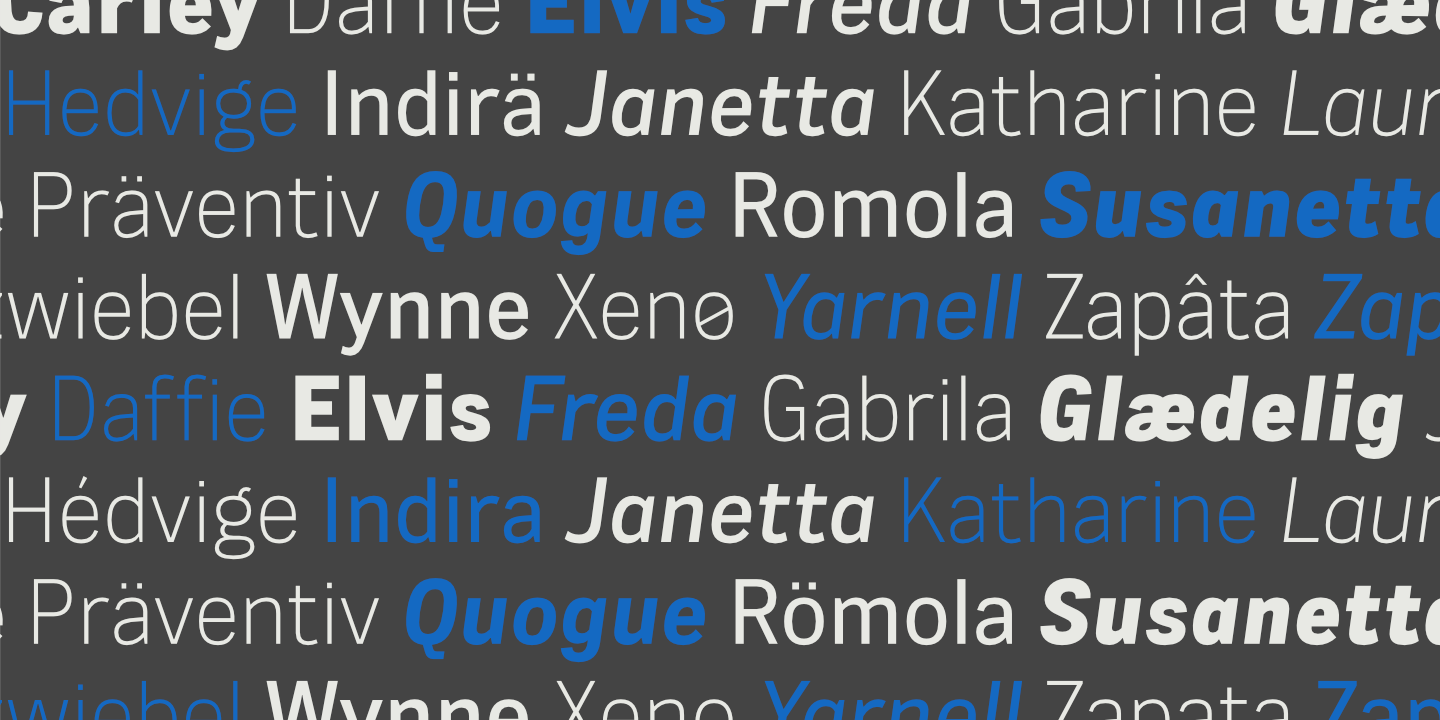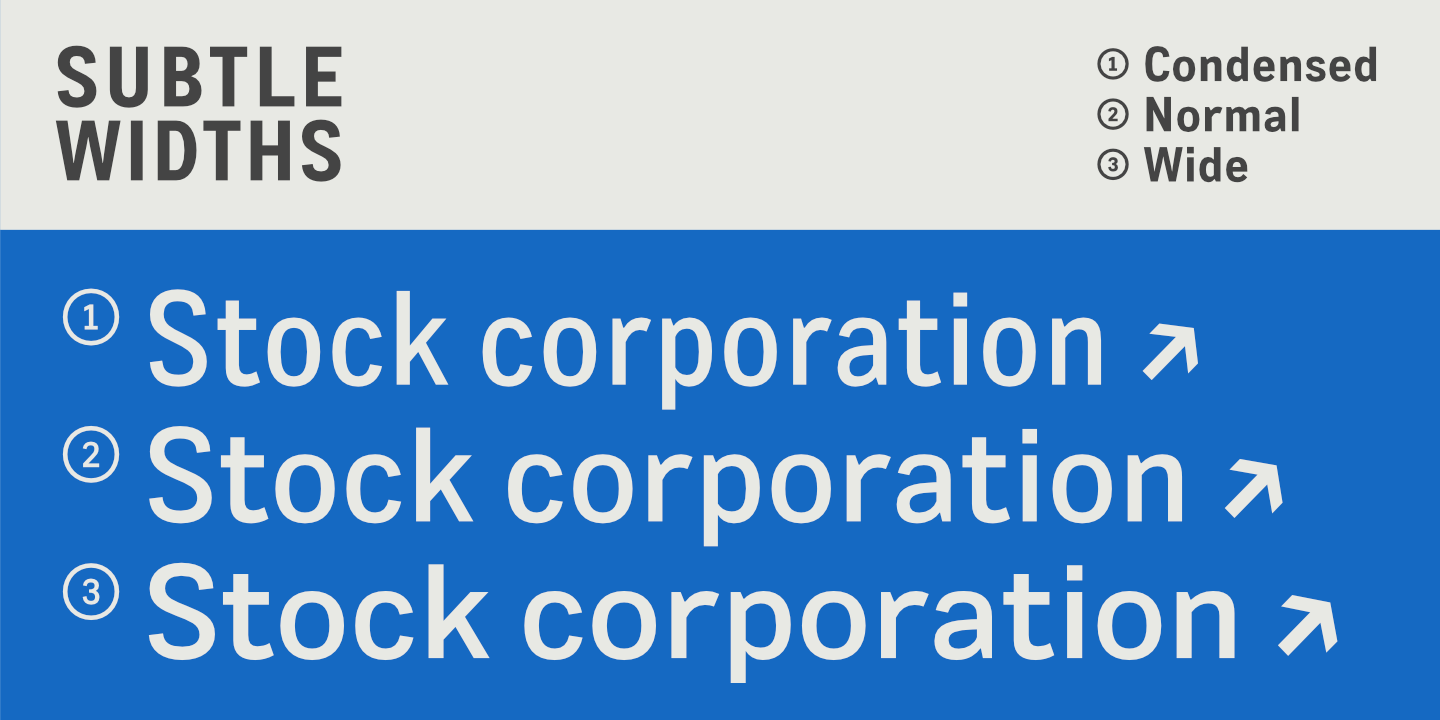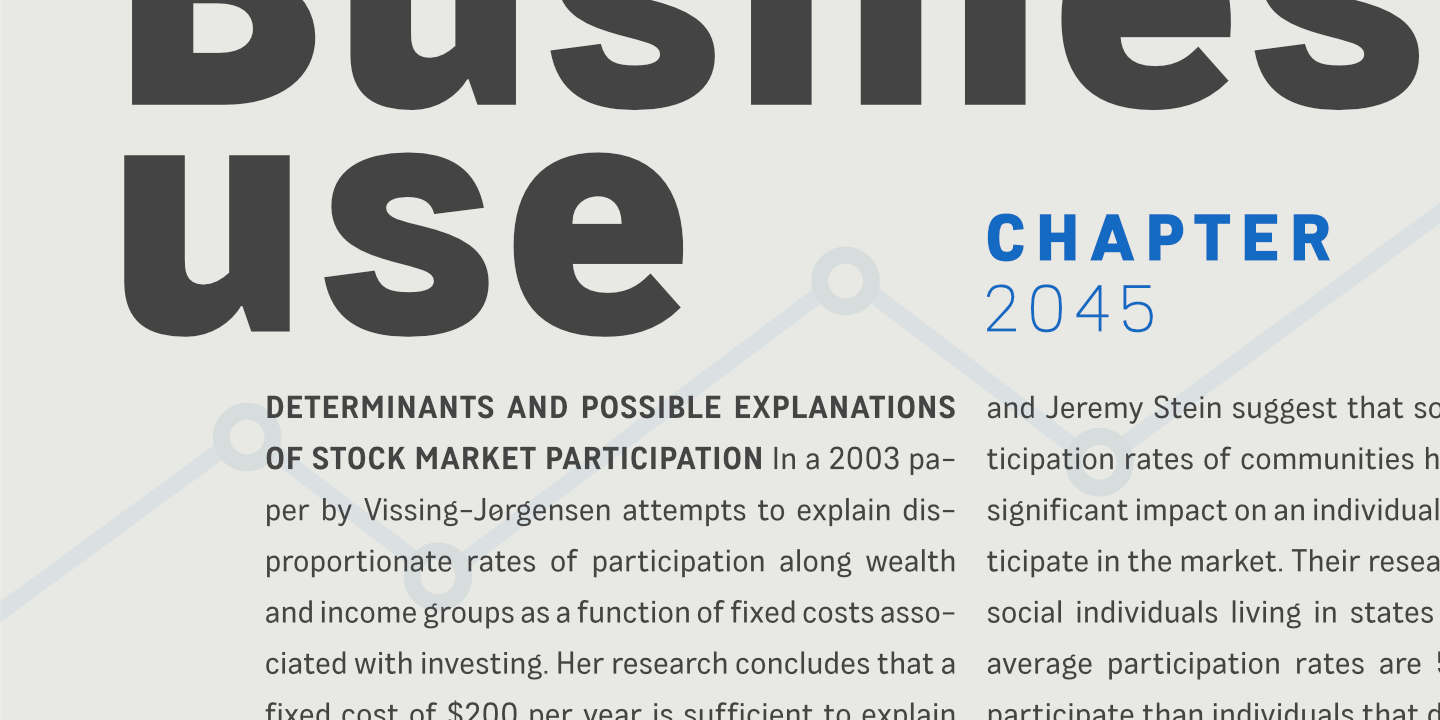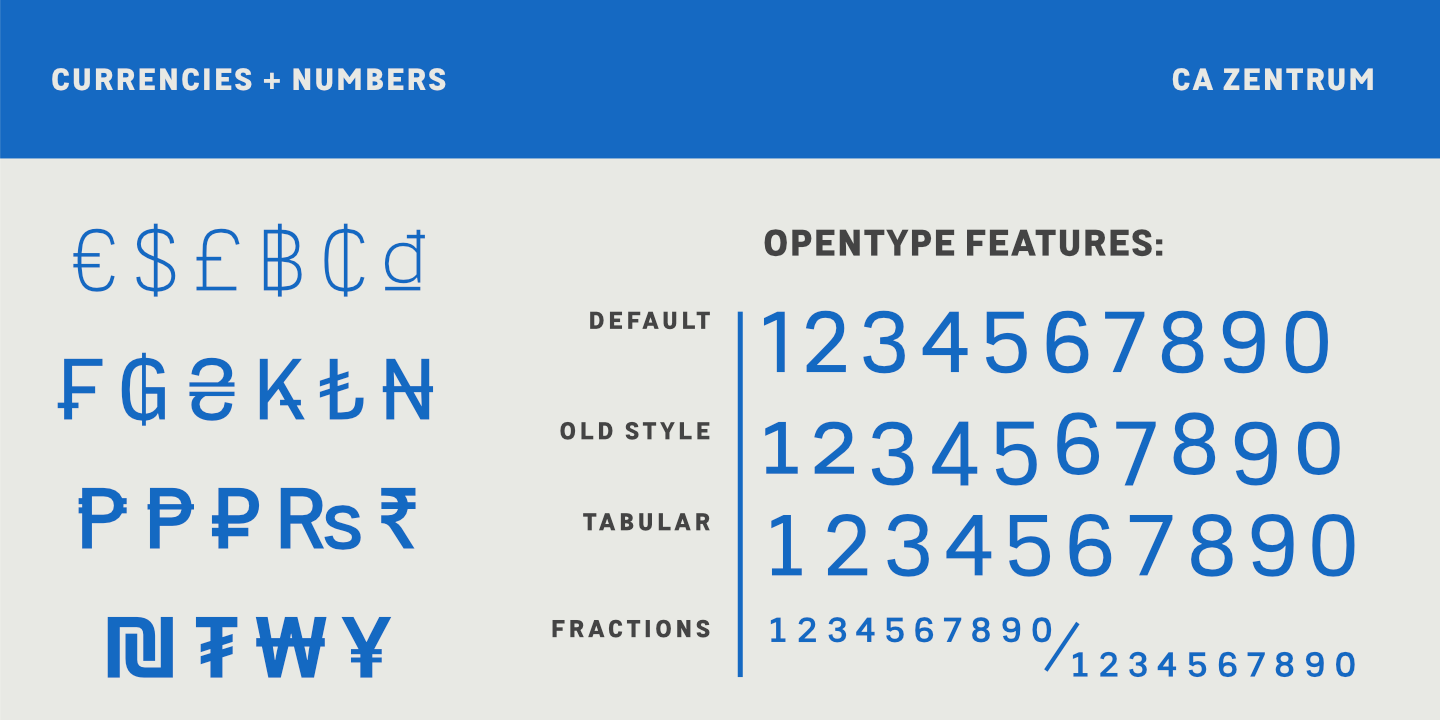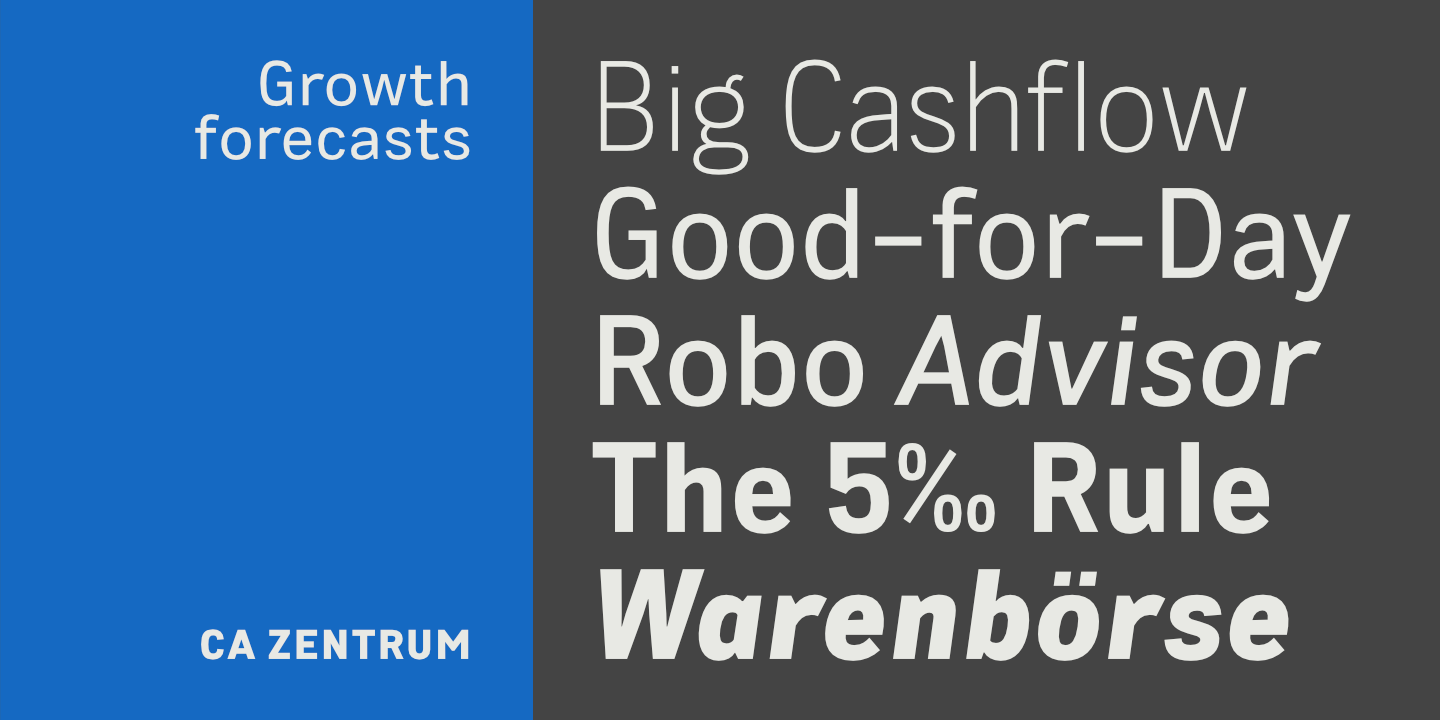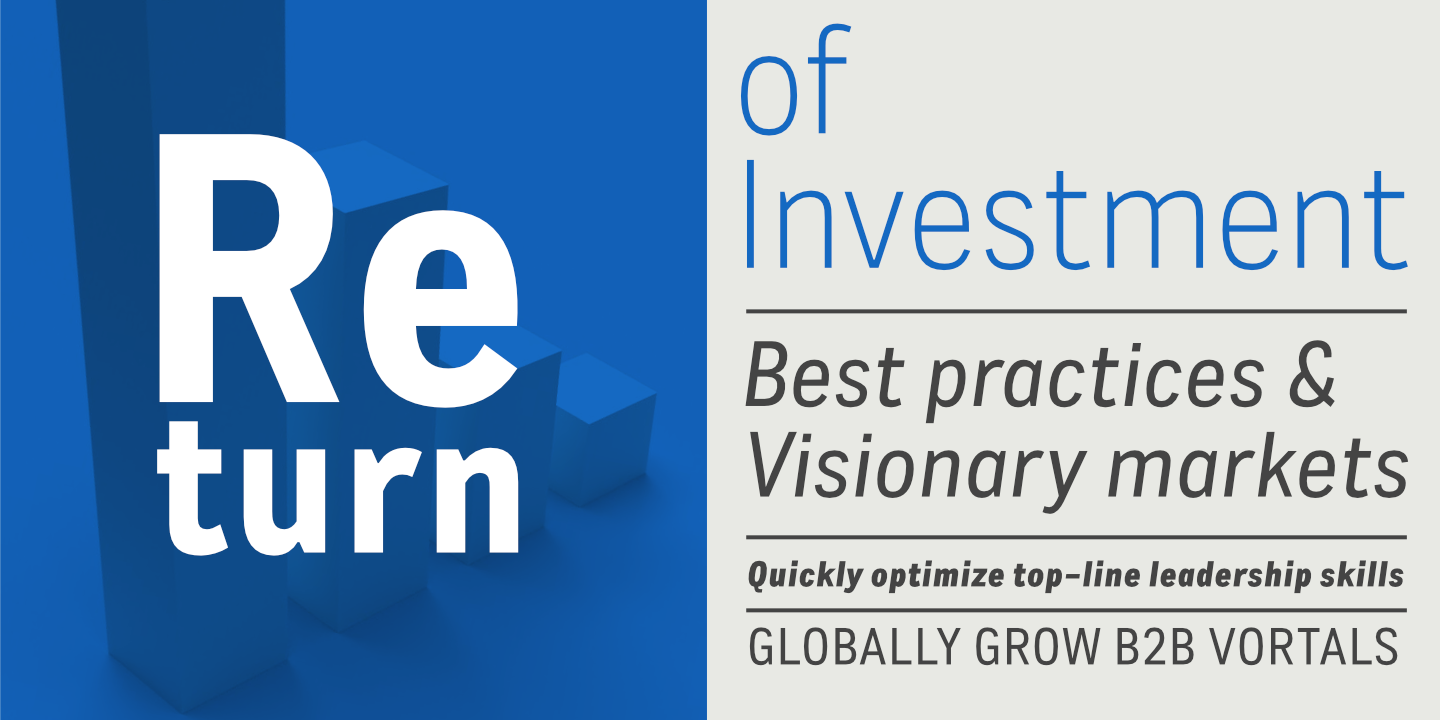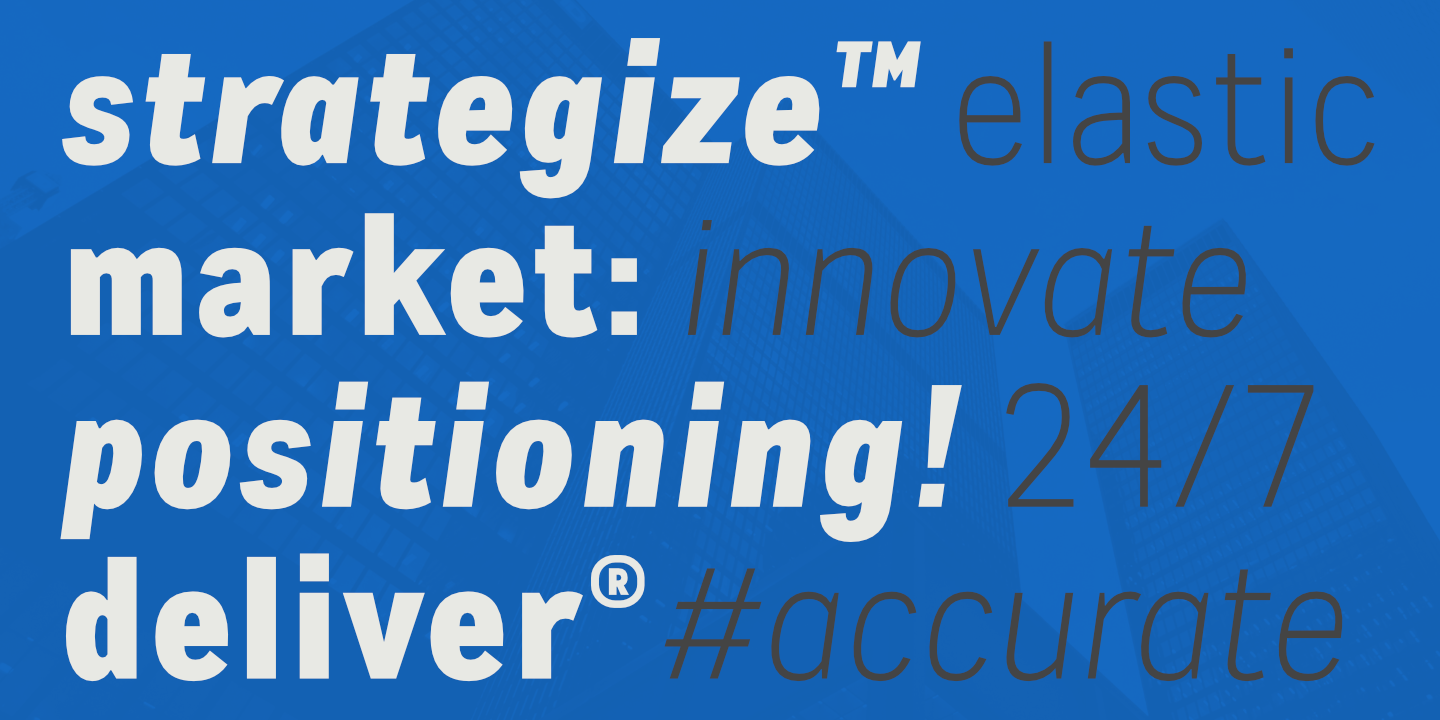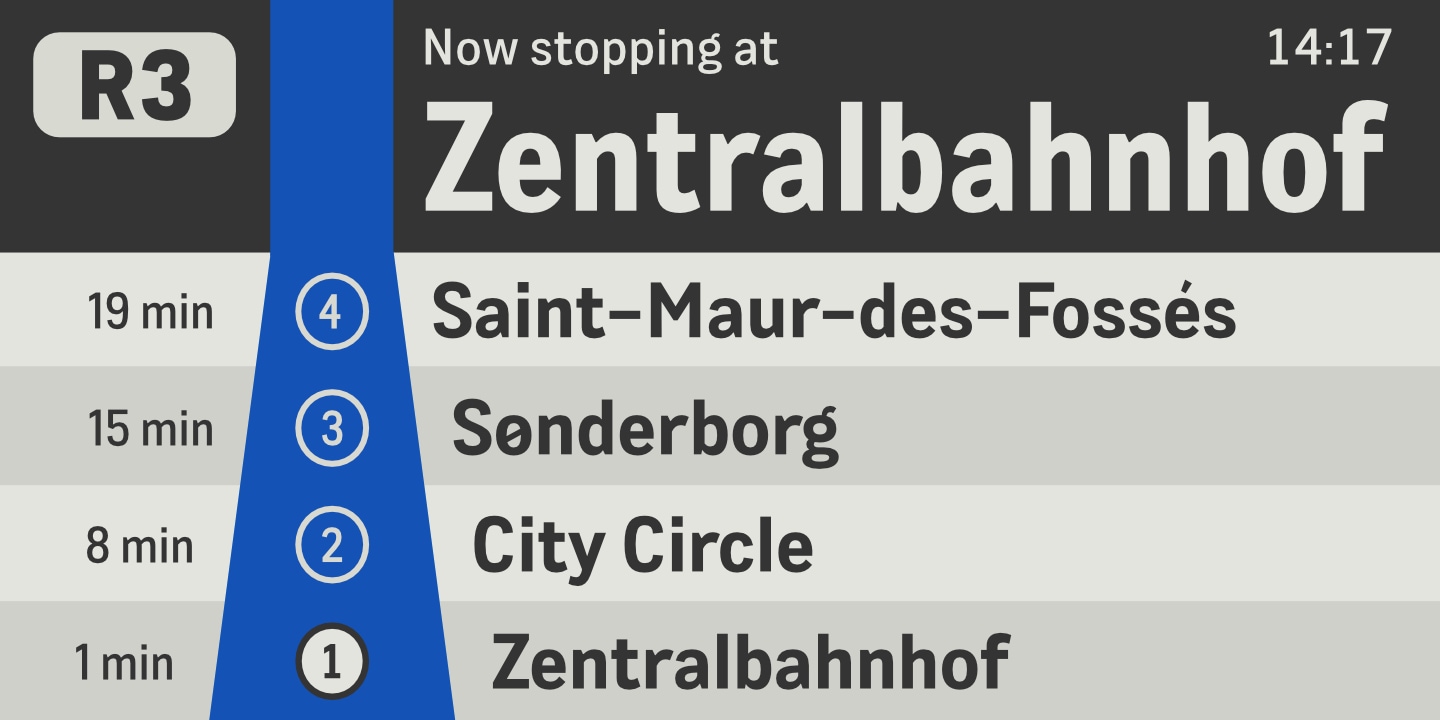
CA Zentrum mixes concise and practical. It's bold, distinct, and a little unusual, but still feels modern and easy to use. Look closer, though, and you'll notice rounder shapes that make it comfortable to read.
The weights are built for simplicity: five of them, from light to black, plus three widths from condensed to wide. That should cover most jobs without making you overthink it. The glyph set also supports over 100 Latin languages.
It's a good fit for corporate branding, websites, editorial work, and advertising – anywhere you want something that feels both timeless and current. The spacing is tight and consistent, and the OpenType features are strong enough to make it a solid choice for body text and editorial layouts.